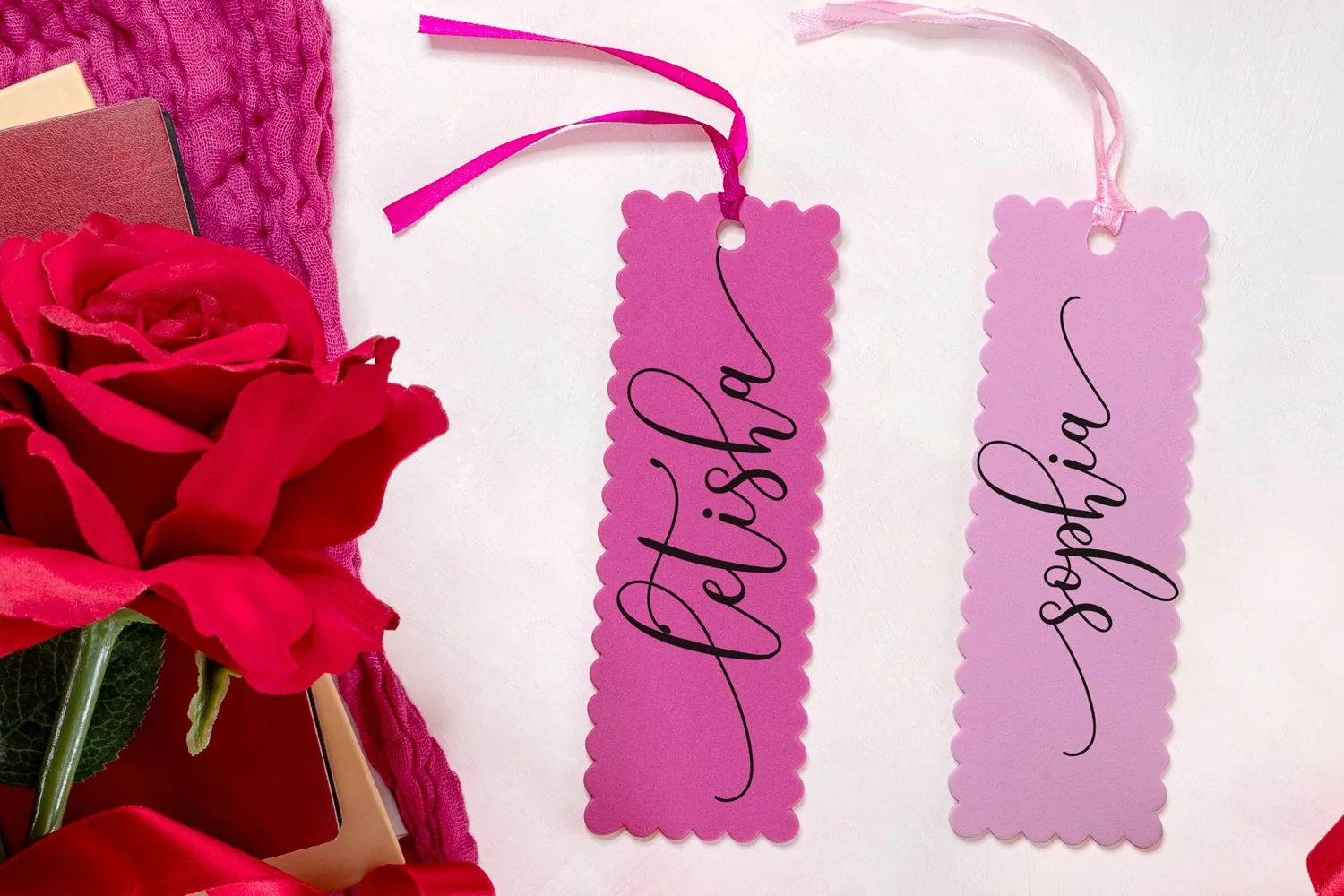
Jamila Meltova - Font Duo Script and Display
Jamila Meltova is font duo with its elegance and beauty. The script one is so classy, with swash in the font and back to give more options. Meanwhile, the sans one also has extra glyphs to make it more beautiful.
This font duo can be used in any design, such as greeting card, t-shirt, mug, branding, logo, wedding invitation, sublimation, and many other crafting.